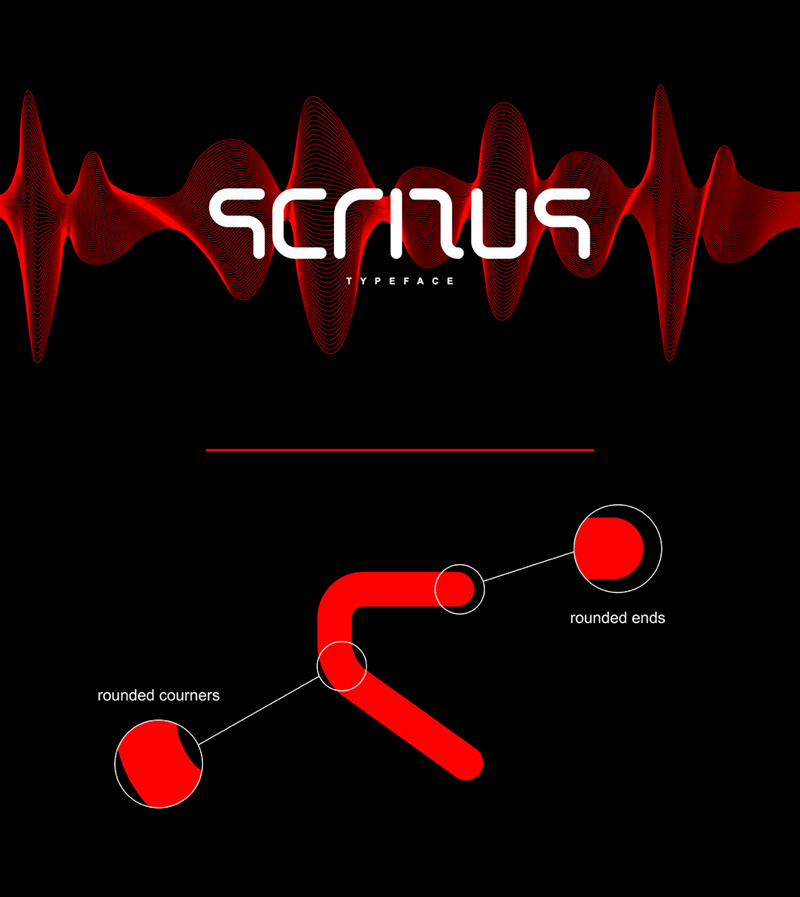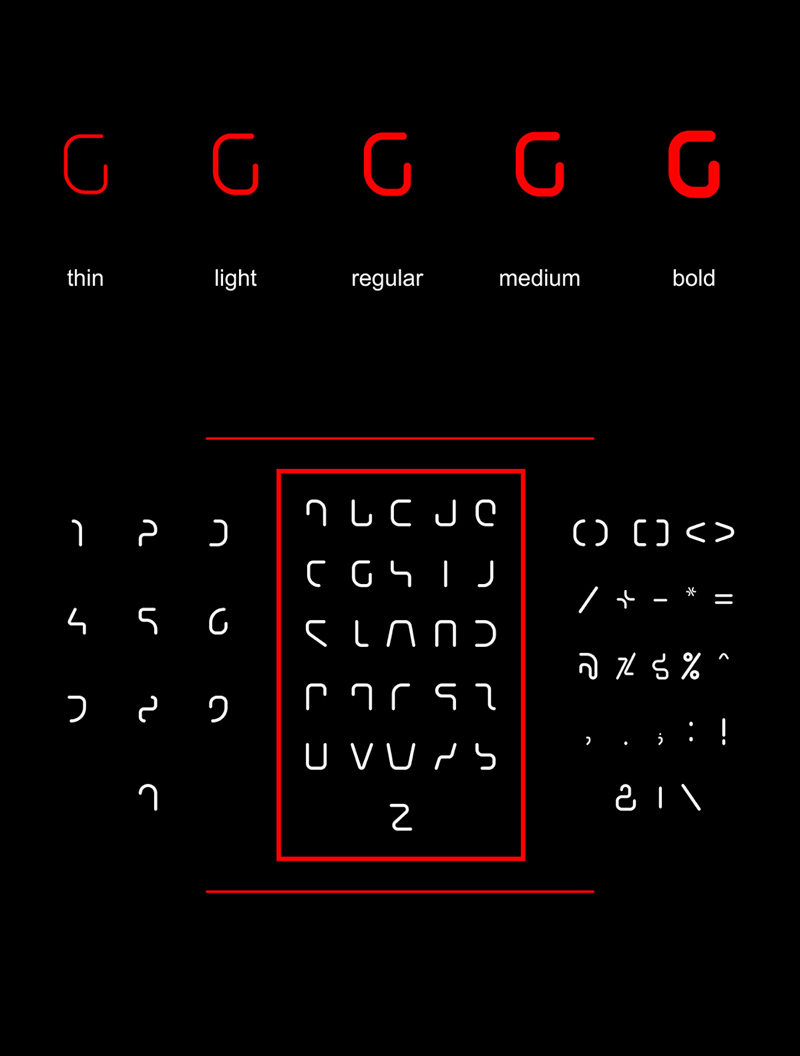
Scritus Font – Free Typeface
Props to Alhussein Ibrahim for designing and releasing this futuristic font with rounded edges called Scritus. So if you want your branding to stand out from the rest, be sure to give this typeface a go.
It’s a futuristic typeface with rounded ends and rounded courners. The idea behind making this typeface appeared when i wanted to design my personal logo. I made characters to be very simple to suit futuristic designs and process modern designs as well.…